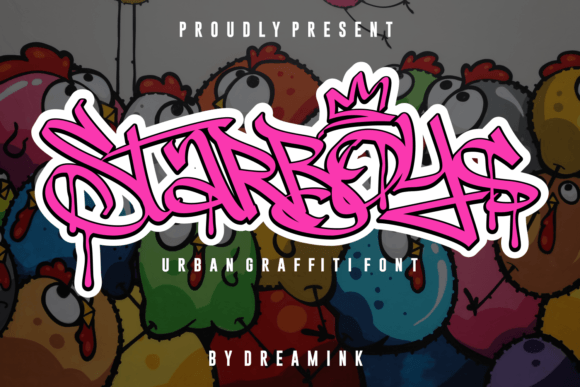
Unleash your rebellious spirit with Starboys Font, the urban and expressive font that captures theessence of graffiti culture. Inspired by bold brushstrokes and energetic strokes found on city walls, this font is more than just a font; it's an expression of freedom and individuality.
Immerse yourself in the world of street art, where creativity knows no bounds, and let your designs scream with raw and untamed energy. Infuse your blog posts with a touch of urban authenticity, making your words dance with the rhythm of the streets.
With Starboys Font, you're not just downloading a font; you're joining a movement, a revolution in typography where rules are meant to be broken, and limits are meant to be pushed. Break free from the ordinary and let your designs radiate with the vibrancy and grit of graffiti art.
Starboys Font is not just a font; it's a voice, a reflection of the rebellious spirit that lives within you. Make your designs speak louder than words, and let Starboys Font be the megaphone that amplifies your message to the world.
Elevate your blog to new heights with Starboys Font, the urban and expressive font that embodies the soul of street art. Be bold, be unique, be rebellious, and let your designs leave an unforgettable mark on the digital landscape.